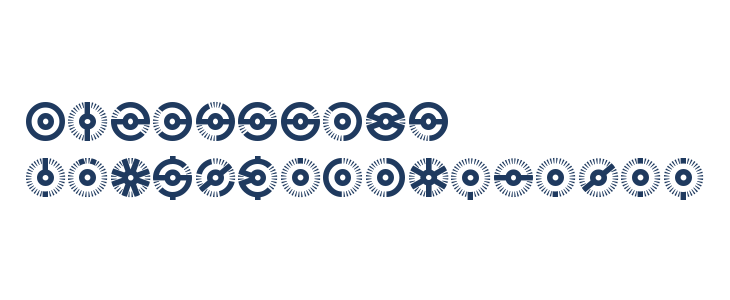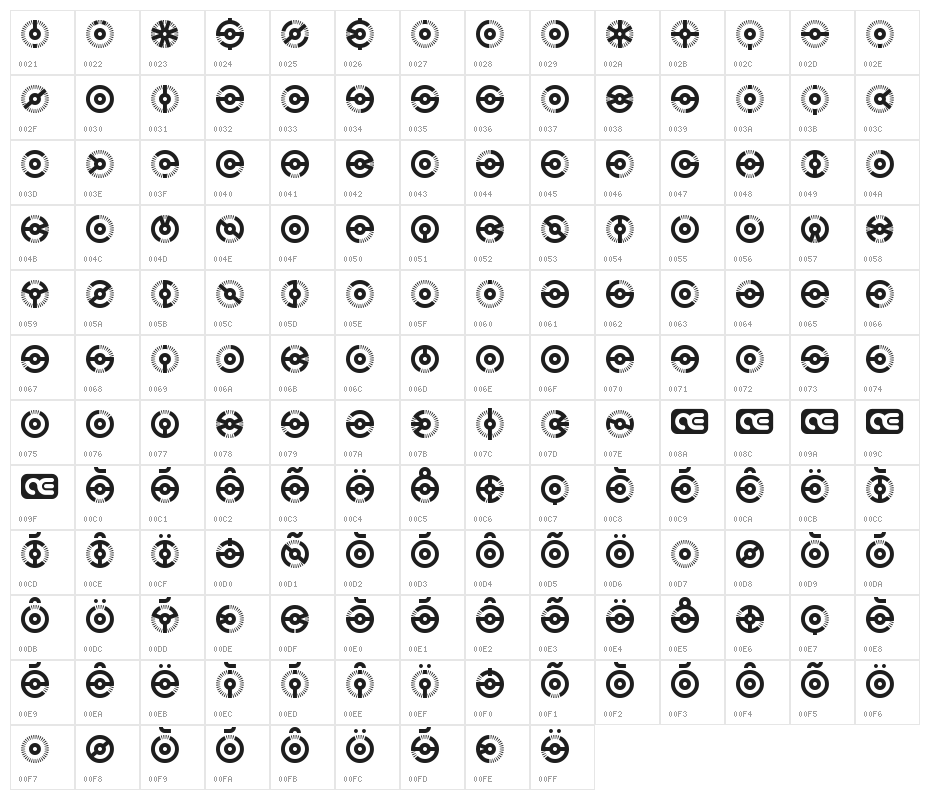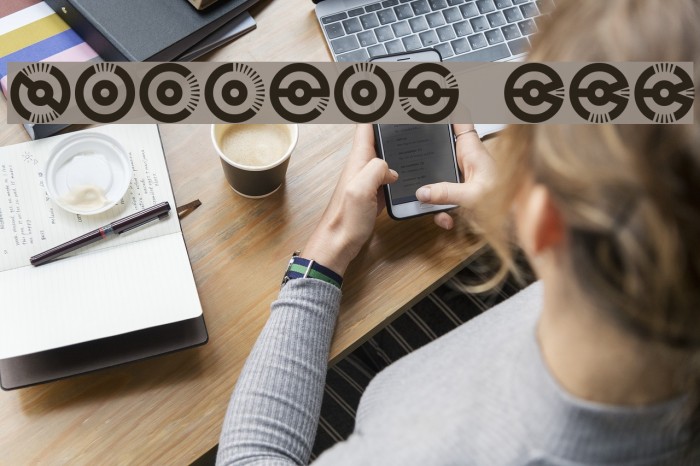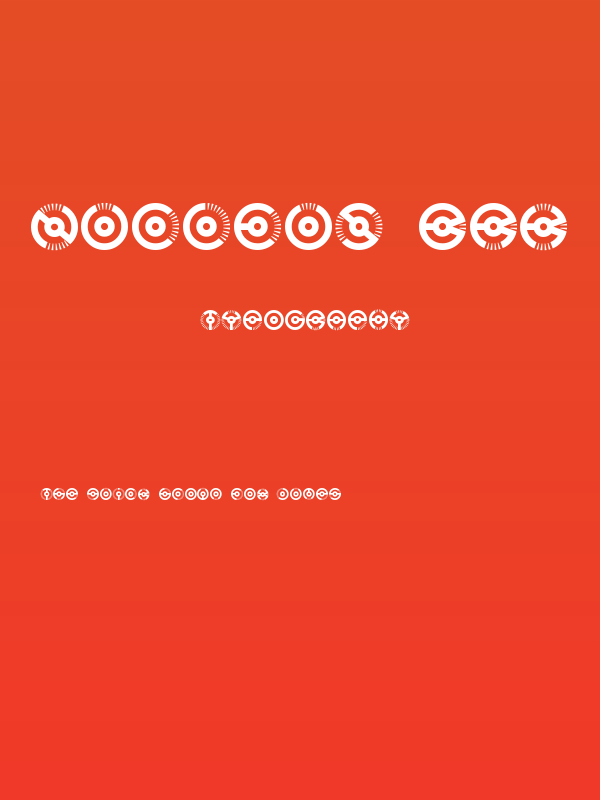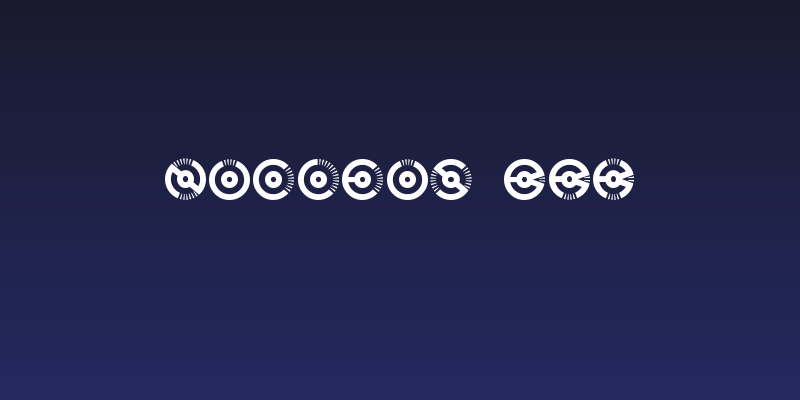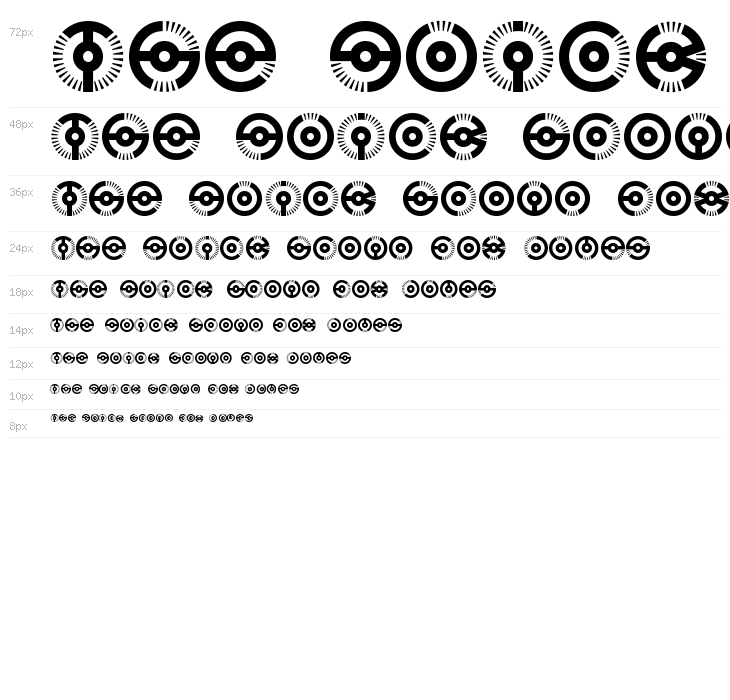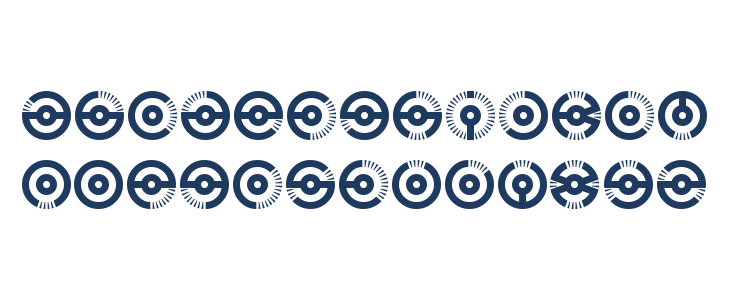
Nucleus BRK Font
Nucleus BRK Description
This font features a highly decorative and abstract design, characterized by circular and radial elements that create a futuristic and dynamic appearance. Each character is composed of concentric circles and lines, giving it a unique, almost hypnotic look. The bold, geometric shapes are consistent across all characters, creating a cohesive and visually striking typeface. The intricate patterns within each letterform suggest movement and energy, making it ideal for projects that require a modern and avant-garde aesthetic. The font's distinctive style is both eye-catching and memorable, suitable for creative and artistic applications.
| Use Case | Logos, Posters, Album covers |
| Proposed Projects | This font is perfect for sci-fi themed projects, digital art, modern branding, and experimental design work. |